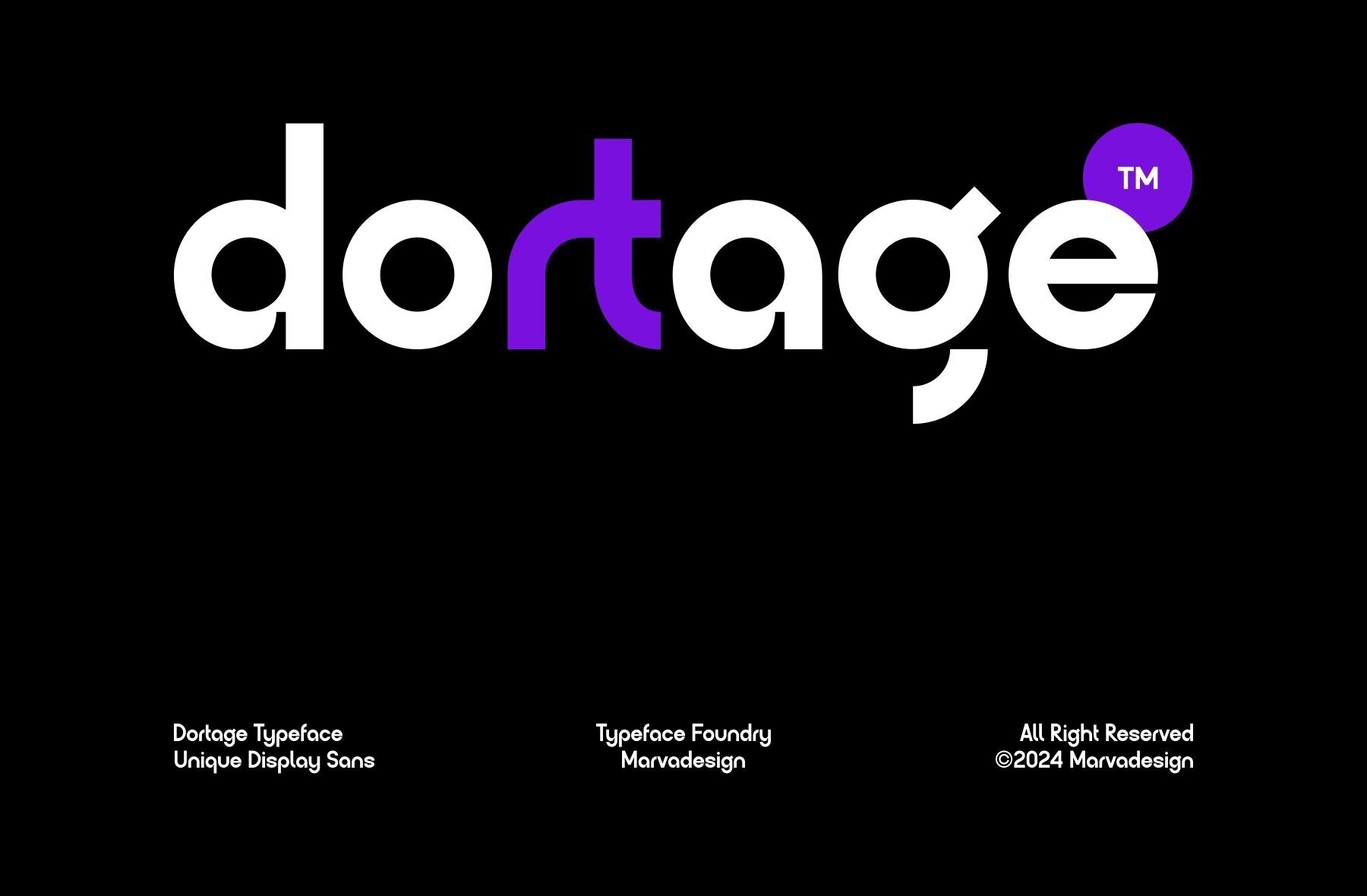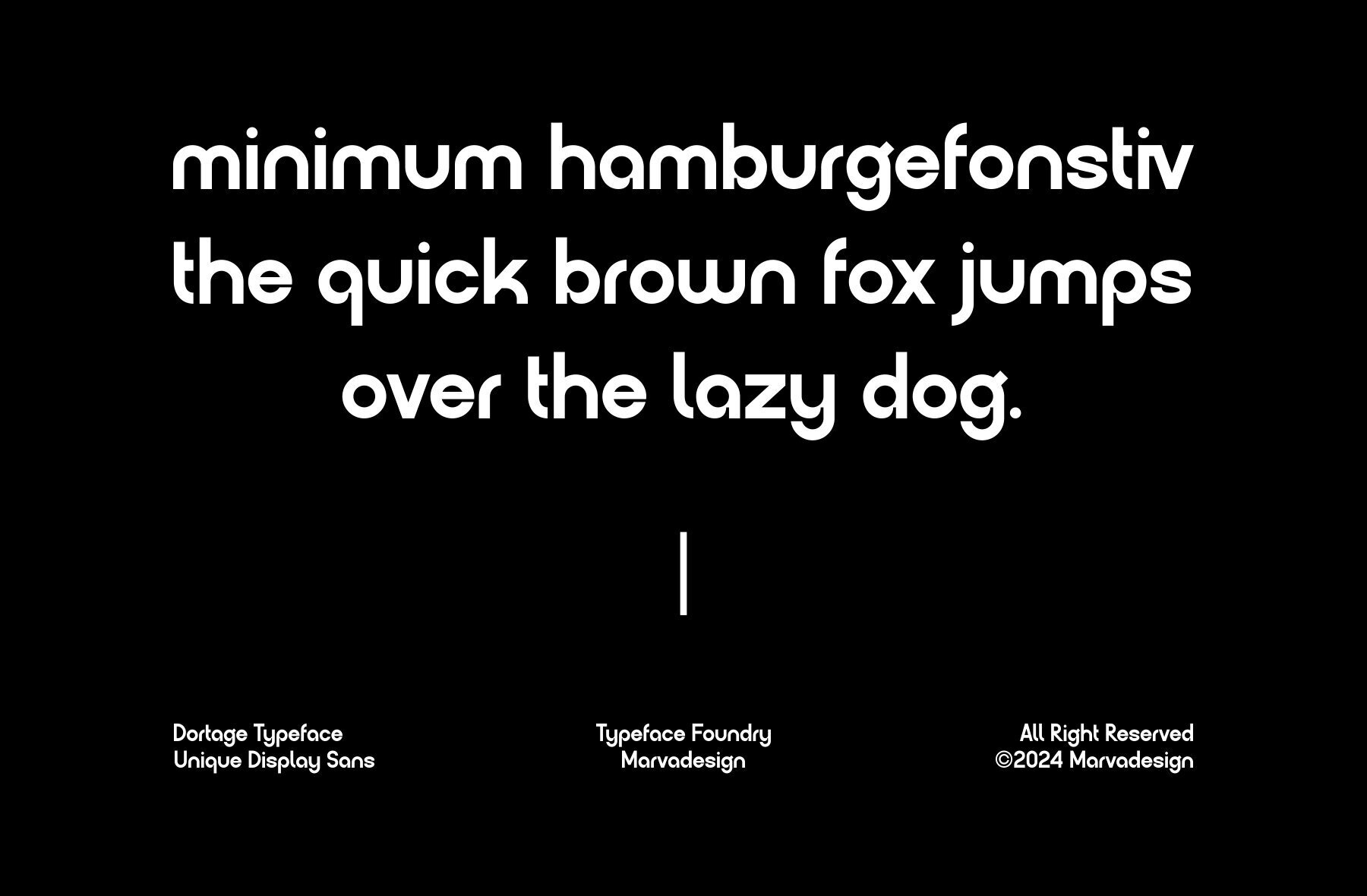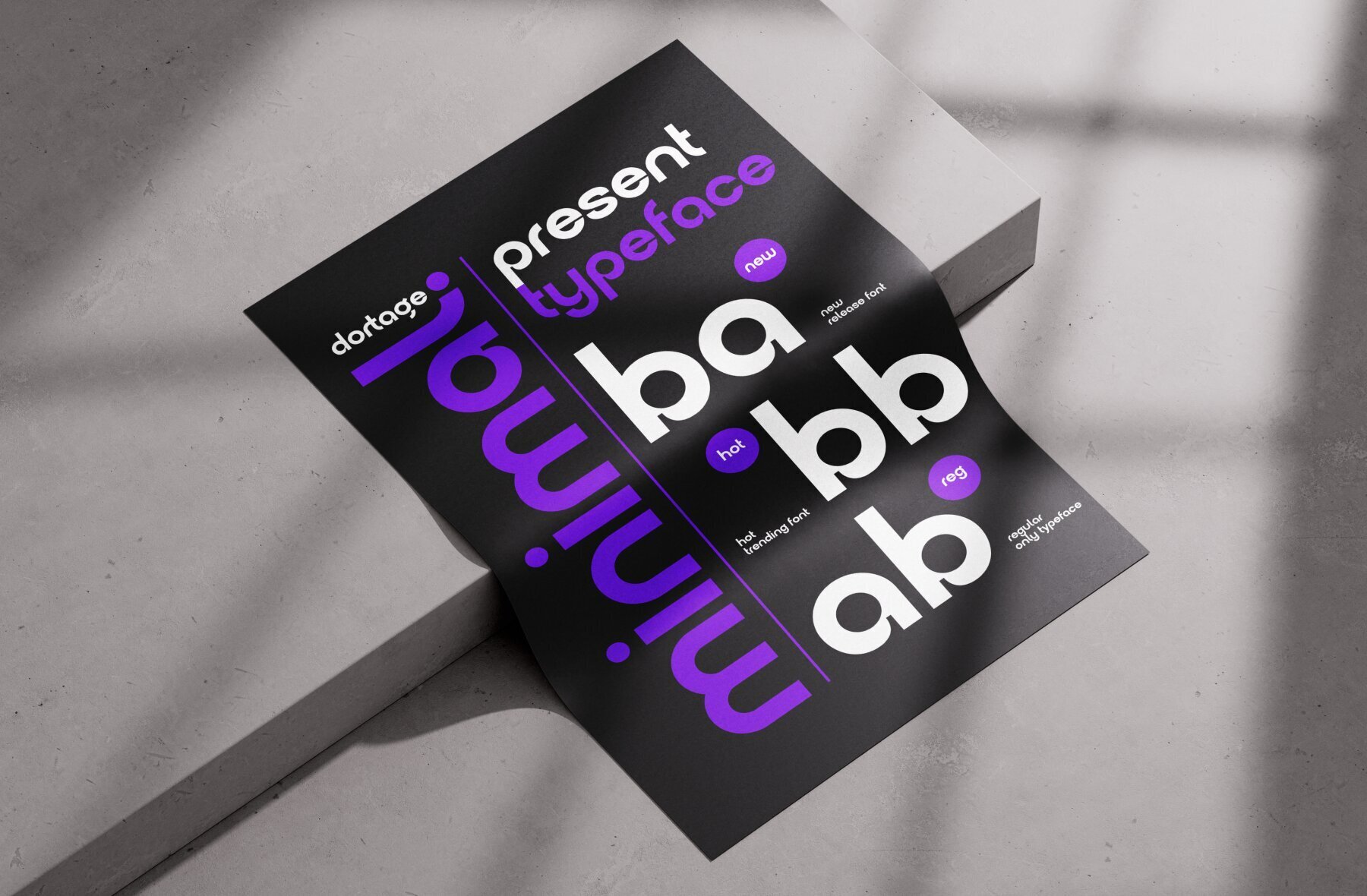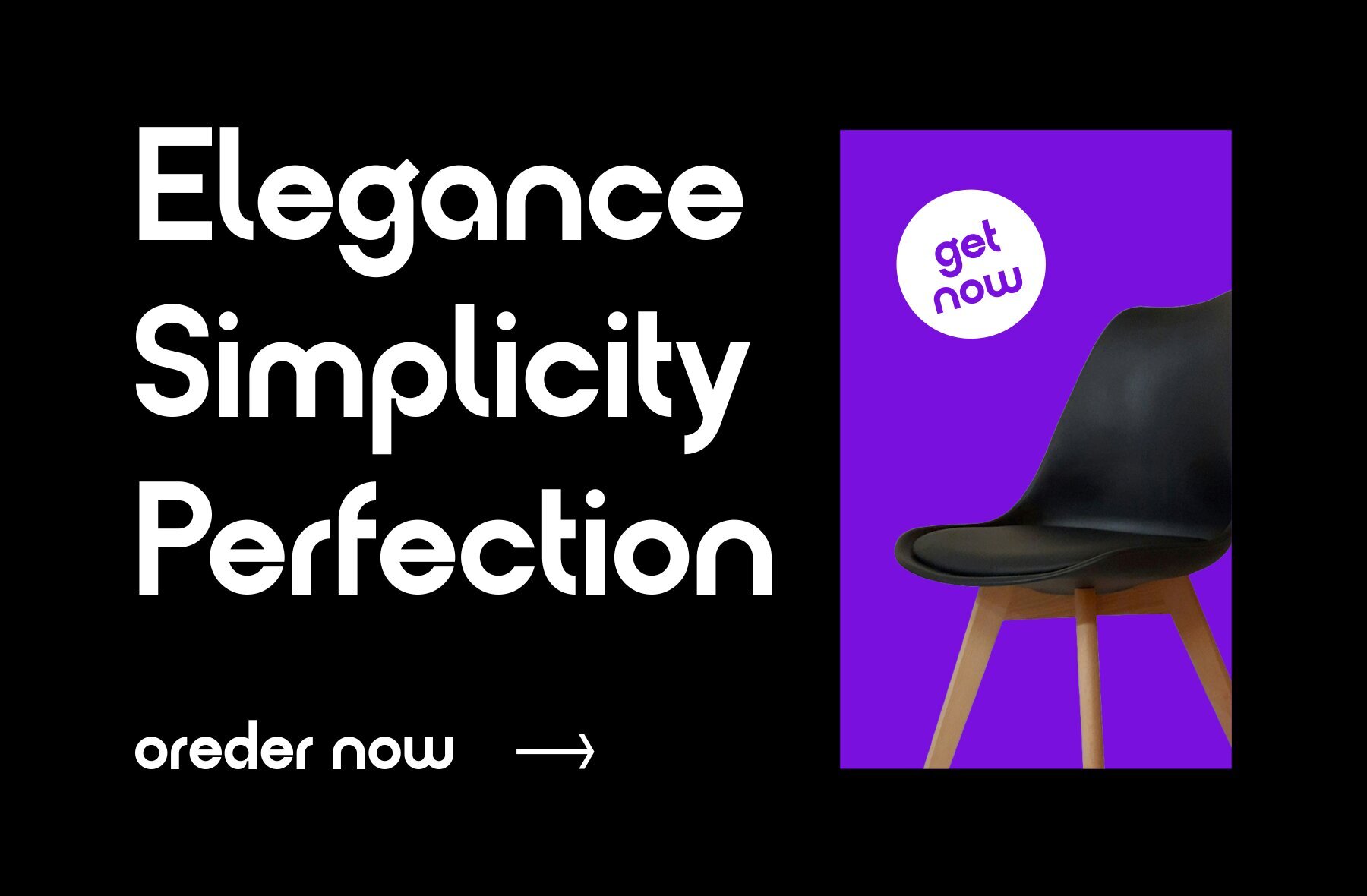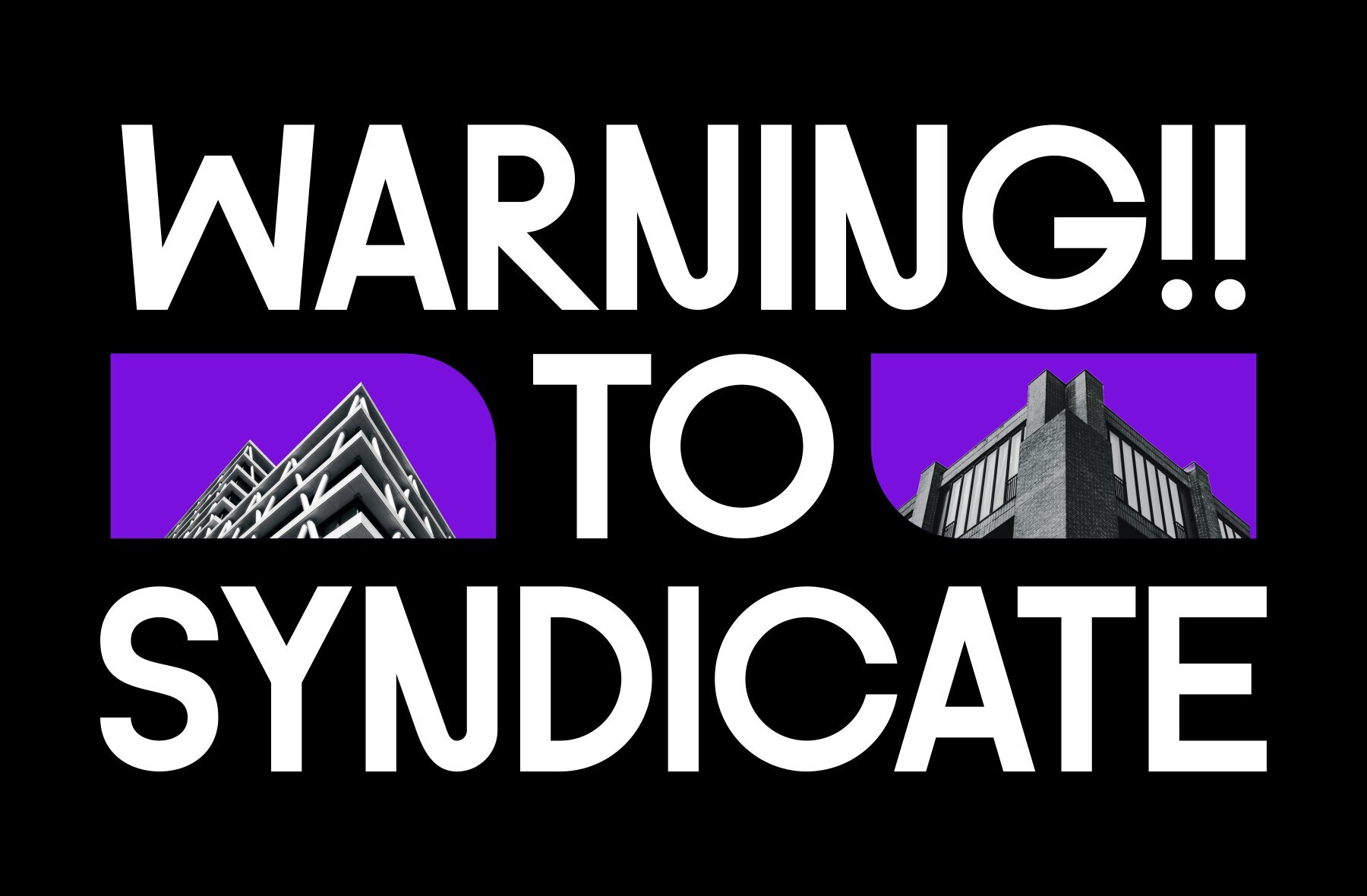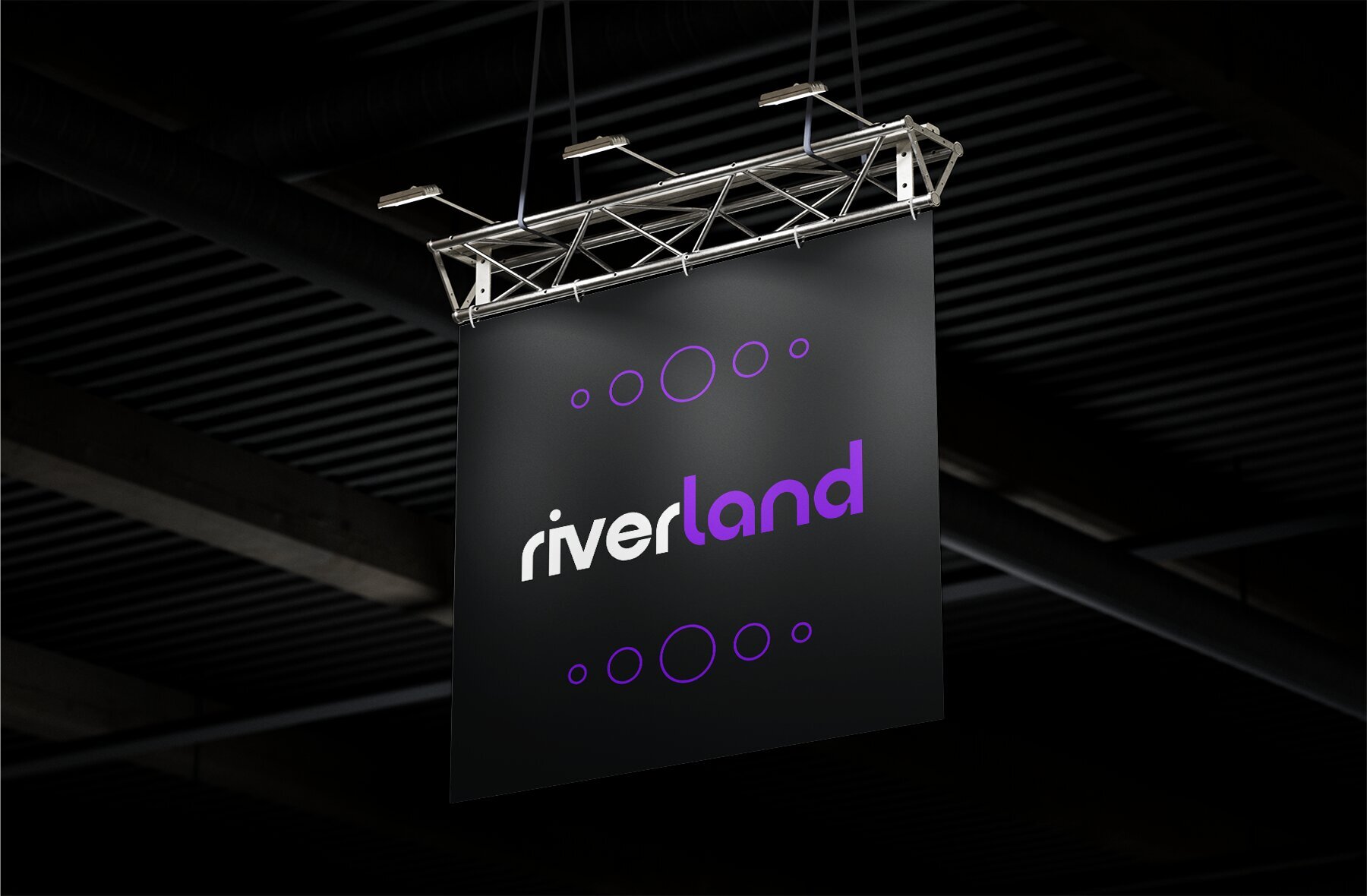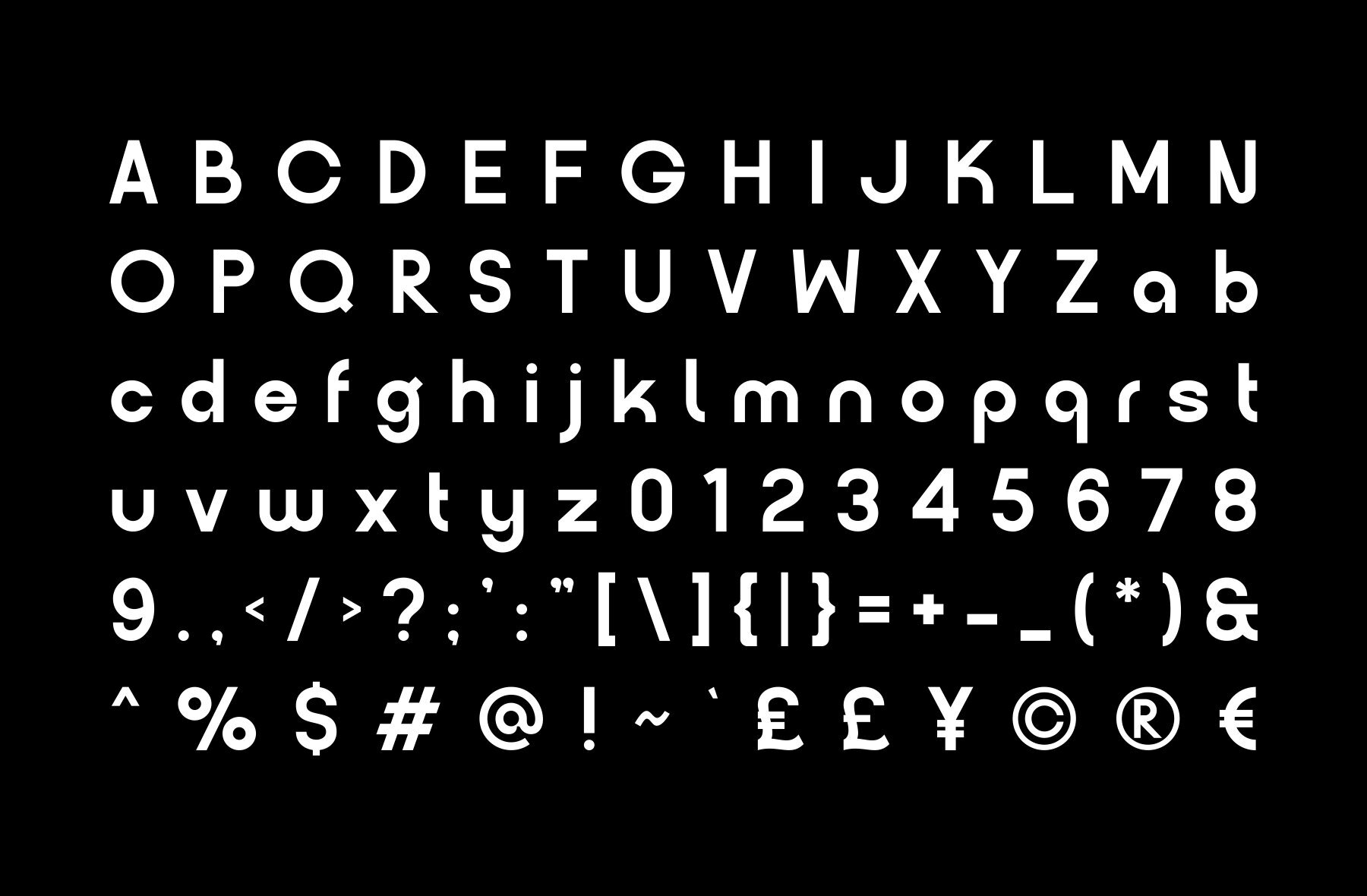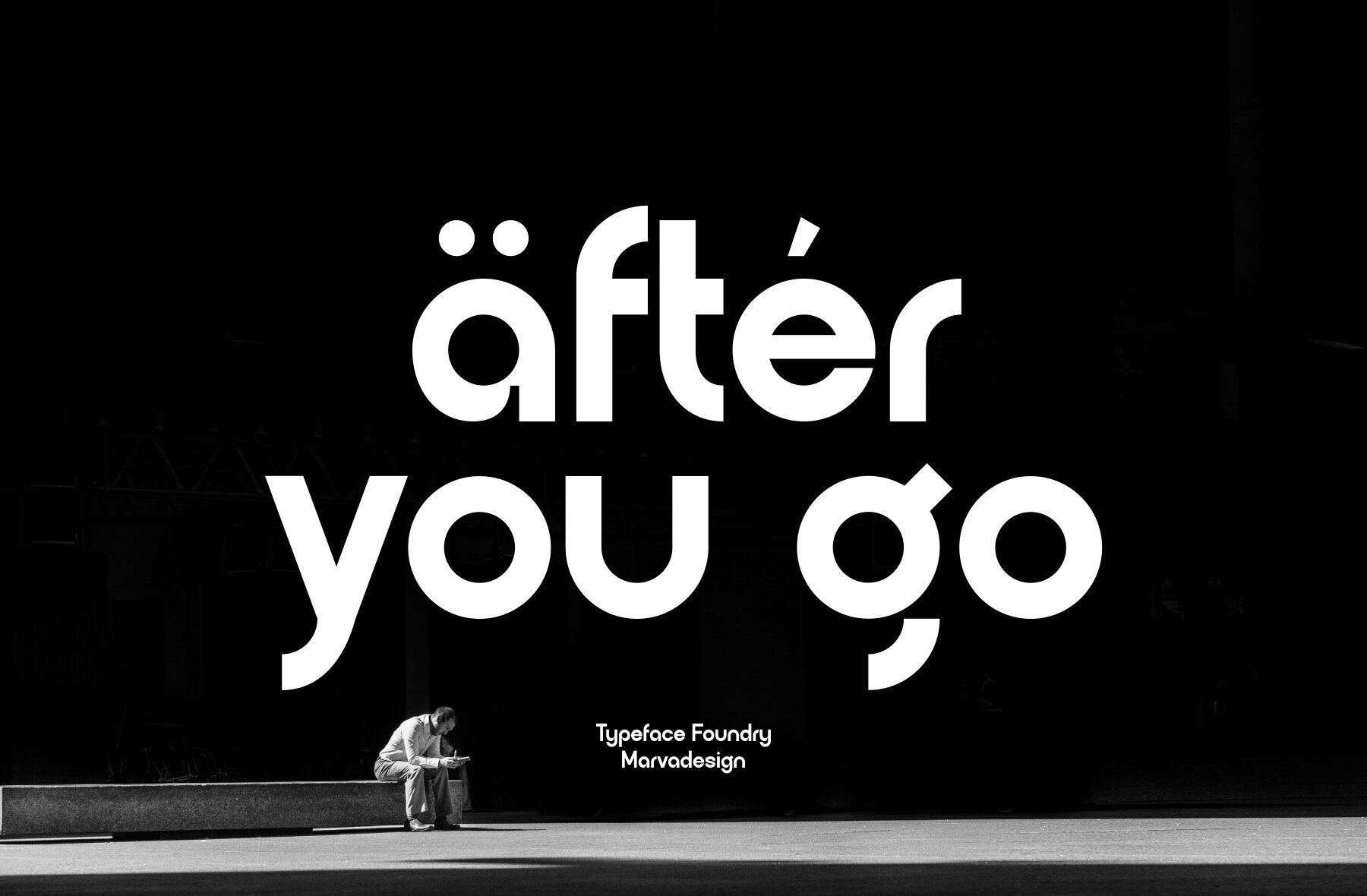
Dortage Font
Dortage Regular
Dortage is a minimalist sans display font designed to create clean, modern aesthetics. Its sleek and straightforward design makes it an ideal choice for logotypes, branding, posters, and magazines. The font's refined lines and balanced proportions ensure readability while maintaining a stylish and contemporary look.
With its versatility and elegance, Dortage stands out in projects requiring a professional and polished appearance. Its minimalistic approach allows it to seamlessly integrate into various design contexts, from corporate branding to creative editorial layouts. Whether you're looking to develop a cutting-edge brand identity or craft eye-catching promotional materials, Dortage delivers a refined and sophisticated result.